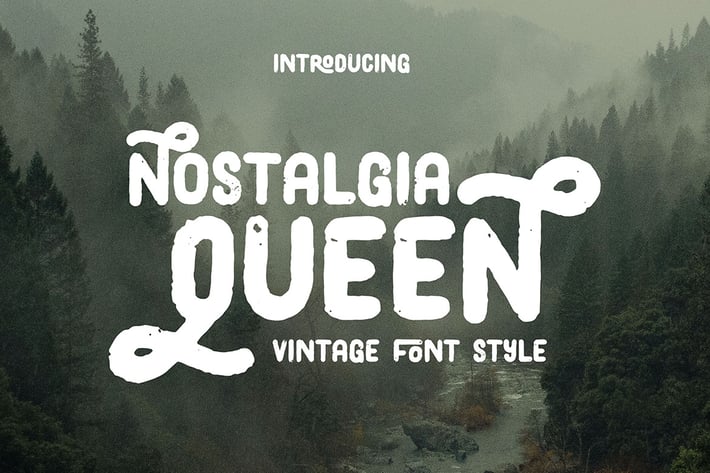
Nostalgia Queen Vintage Font
Casual, simple, rough, handwritten and vintage sans serif font for your new projects. With multi language support and casual grunge style ;)
- alternates & ligatures
- cool swashes